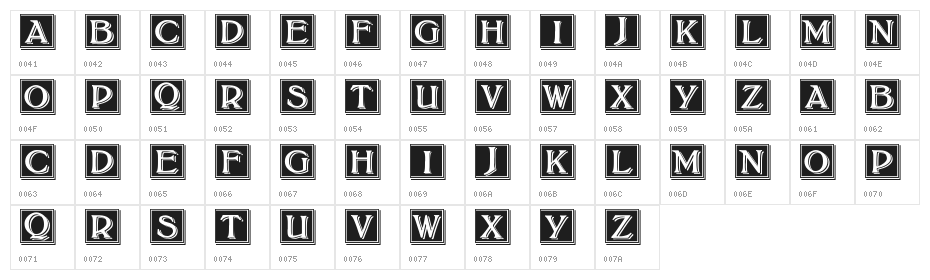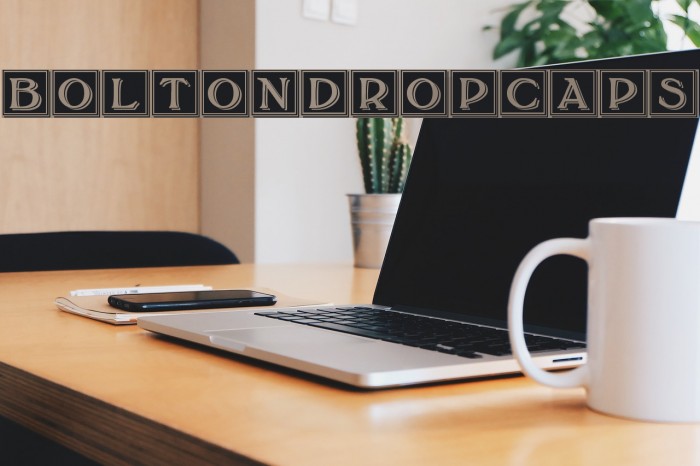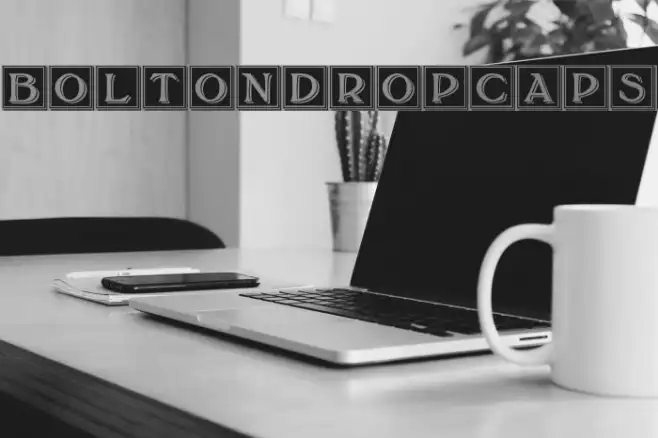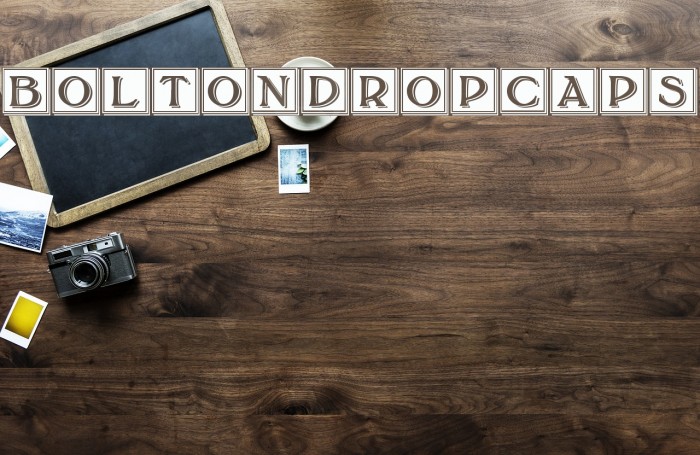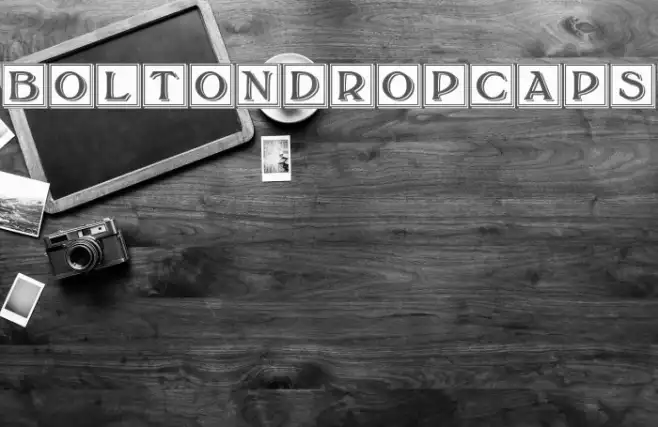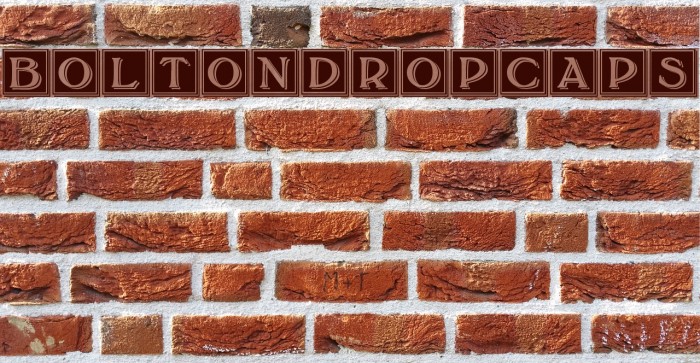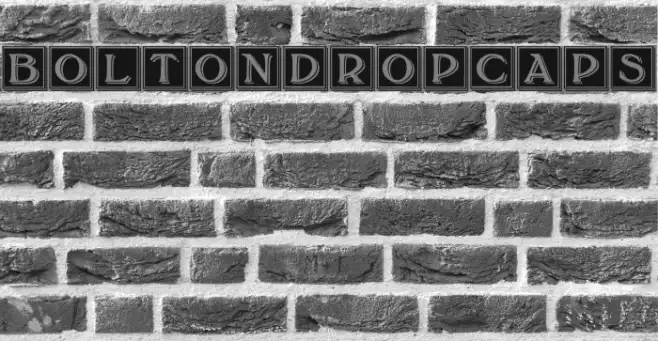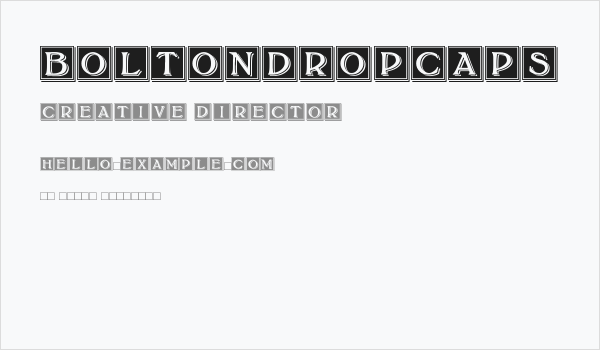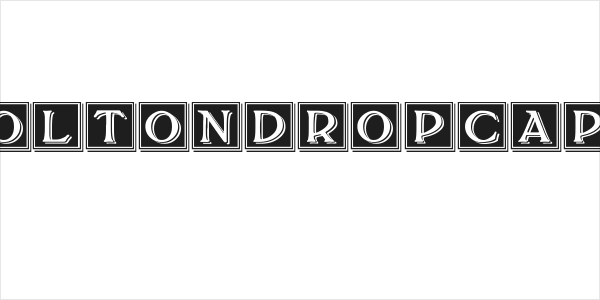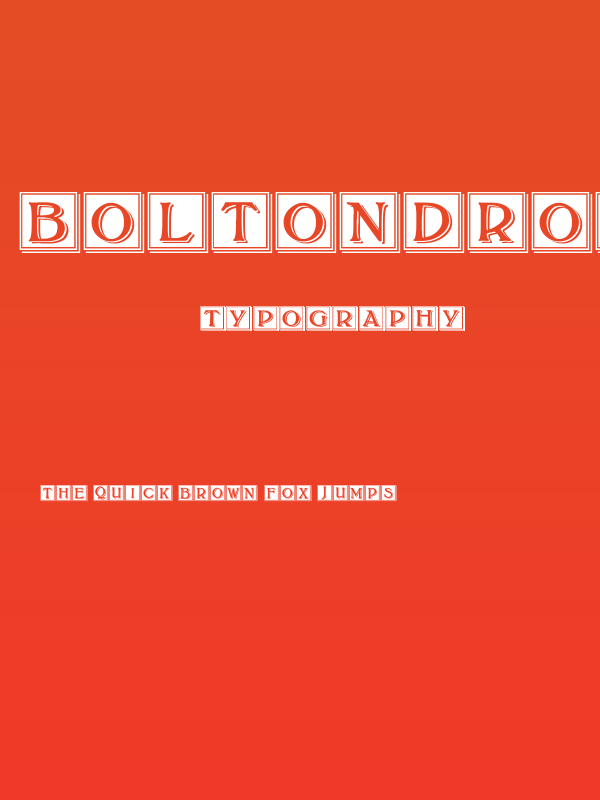
BoltonDropCaps Font
BoltonDropCaps Description
This font features a bold and decorative style with each letter encased in a square border, creating a striking and ornate appearance. The letters are uppercase and exhibit a classic serif design with intricate detailing that adds a sense of elegance and sophistication. The high contrast between the thick and thin strokes enhances the visual impact, making it suitable for decorative purposes. The font's unique boxed presentation gives it a distinct and formal look, ideal for projects that require a touch of grandeur and formality.
| Proposed Projects | Ideal for use in book covers, invitations, posters, and any project requiring a decorative and formal typeface. |